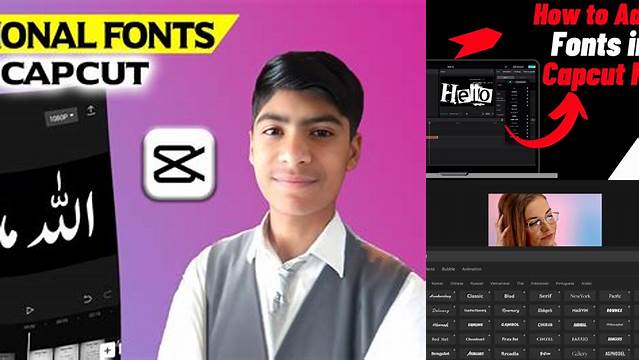
Add Fonts To CapCut Web: A Complete Guide
Hey guys! Ever wondered how to spice up your CapCut Web videos with some cool new fonts? Well, you've come to the right place! In this guide, we're going to dive deep into how to add fonts in CapCut Web, covering everything from the basics to some pro tips and tricks. So, buckle up and let’s get started!
1. Understanding Font Options in CapCut Web
Before we jump into the nitty-gritty of adding fonts, let’s first understand what font options CapCut Web offers. CapCut Web comes with a decent built-in library of fonts, but let’s be honest, sometimes you just need something…more you know? Something that truly reflects your style and the vibe of your video. Adding fonts allows you to personalize your projects, making them stand out from the crowd. The default font selection is great for beginners, but to truly elevate your content, exploring custom fonts is key. We'll walk you through how to do just that, ensuring your videos have that extra oomph! Think about it, the right font can make your message pop, giving your video a professional and polished look. Don't settle for the ordinary when you can create something extraordinary, guys! Experimenting with different fonts is an essential part of video editing, and CapCut Web makes it surprisingly easy. So, let’s dive in and see how we can transform your videos, one font at a time. Keep reading – we've got some awesome tips coming up!
2. Default Font Library in CapCut Web
CapCut Web's default font library is a solid starting point. It includes a variety of styles, from classic serif fonts to modern sans-serif options and even some funky display fonts. These fonts are great for everyday use and can cover a wide range of video themes. But sometimes, the standard selection just doesn’t cut it, right? You might need a specific font to match your branding, or perhaps you're looking for something truly unique. That's where adding custom fonts comes into play. Still, it's good to know what's already available. Think of the default fonts as your reliable toolkit – always there when you need them. You’ll find fonts suitable for titles, subtitles, and body text, ensuring your message is clear and readable. Remember, readability is crucial! No matter how cool a font looks, if your audience can’t read it, it’s not doing its job. So, take some time to browse through the default library, get familiar with the options, and see what works best for your style. And once you’re ready to go beyond the basics, we’ll show you how to add your own fonts and take your videos to the next level. Let's keep going, guys!
3. Why Add Custom Fonts to CapCut Web?
So, why bother adding custom fonts to CapCut Web? Well, custom fonts give you a huge creative advantage. They allow you to inject your personality and brand identity into your videos, making them instantly recognizable. Imagine using a font that perfectly captures the essence of your brand – that’s powerful stuff! Plus, using unique fonts helps your videos stand out in a sea of content. In today's digital world, where everyone is vying for attention, having a distinctive visual style is essential. Custom fonts are also great for creating specific moods or themes. A handwritten font can give a personal, intimate feel, while a bold, modern font can convey strength and confidence. Think about the message you want to send and choose a font that aligns with it. Moreover, adding custom fonts ensures consistency across all your content. If you have a brand font, using it in your videos will reinforce your brand identity. This consistency builds trust and recognition with your audience. So, adding custom fonts isn't just about aesthetics; it's about strategy. It’s about making your videos more engaging, more memorable, and more you. Keep reading to learn exactly how to make it happen!
7. Preparing Fonts for Upload to CapCut Web
Before you rush to upload your newly downloaded fonts to CapCut Web, let's take a moment to prepare them. This step is crucial to ensure a smooth and hassle-free experience. First, make sure you've extracted the font files from the ZIP archive, as we discussed in the previous section. You should have .ttf or .otf files ready to go. It's a good idea to organize your fonts in a dedicated folder. This will make it easier to find them later when you need to upload them to CapCut Web. Create a folder on your computer specifically for fonts, and move the extracted font files into it. Next, take a quick look at the font files themselves. Sometimes, a font family will come with multiple files for different weights (like bold, italic, and regular). Make sure you have all the files you need for the font to display correctly in CapCut Web. It's also worth checking the font file names. Some fonts have long or complicated names, which can be a bit confusing when you're browsing for them in CapCut Web. If you want, you can rename the files to something simpler and more recognizable. Just be sure to keep the .ttf or .otf extension. By taking these simple steps to prepare your fonts, you'll save yourself time and frustration down the line. Now you're ready to upload your fonts to CapCut Web and start creating amazing videos!
8. Step-by-Step Guide: Adding Fonts in CapCut Web
Okay, guys, here's the moment you've been waiting for! Let's get into the nitty-gritty of adding fonts in CapCut Web. Follow these steps, and you'll be rocking custom fonts in no time:
- Log in to CapCut Web: First things first, head over to the CapCut Web website and log in to your account. If you don't have an account yet, you'll need to create one. It's free and easy to sign up.
- Create a New Project or Open an Existing One: Once you're logged in, you can either start a brand new project or open an existing one that you want to add fonts to. Choose the option that suits your needs.
- Select the Text Tool: In the CapCut Web editor, look for the text tool. It's usually represented by a "T" icon. Click on it to activate the text tool.
30. Staying Updated with Font Trends
Just like fashion, font trends come and go, guys. Staying updated with the latest font trends can help you keep your videos looking fresh and modern. But how do you stay in the loop? Here are some tips: Follow design blogs and websites. Many design blogs and websites regularly feature articles and posts about font trends. Check out sites like Creative Market, Design Shack, and Typewolf to stay informed. Explore font libraries and marketplaces. Font libraries and marketplaces like Google Fonts, Adobe Fonts, and MyFonts often showcase trending fonts on their homepages or in their newsletters. Pay attention to the fonts used in popular media. Keep an eye on the fonts used in websites, advertisements, and other videos. This can give you a sense of what's currently popular. Experiment with new fonts. Don't be afraid to try out new fonts and see how they look in your videos. This is a great way to discover fonts that you love and that fit your style. Join design communities. Online design communities and forums are great places to discuss font trends and get feedback on your font choices. Remember, it's important to use trends as a guide, not a rigid rule. Don't feel like you need to use the latest trending font just because it's popular. Choose fonts that fit your style and the message of your video. Staying updated with font trends can help you make informed font choices and keep your videos looking current and stylish. Let’s keep our videos visually relevant! Now you're fully equipped to add and use fonts in CapCut Web like a pro. Happy editing!